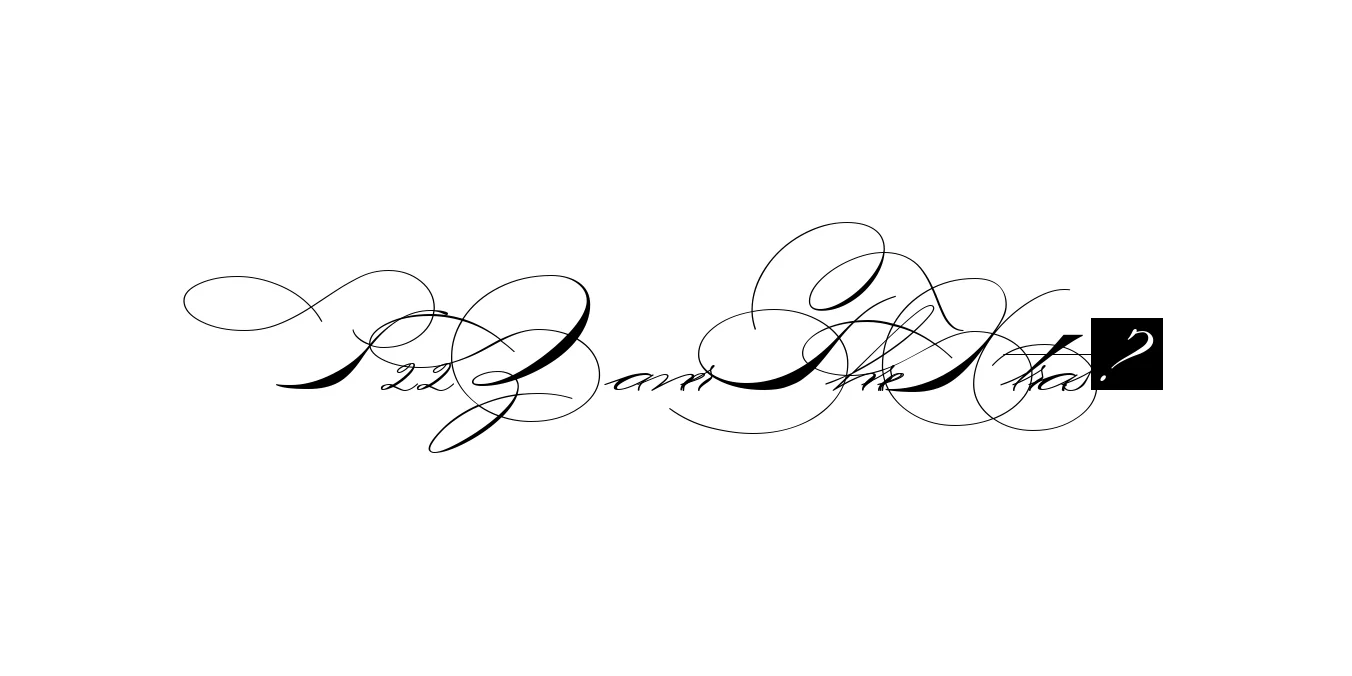
P22ZanerThreeXtras ☞
Designed by Paul Antonio and Richard Kegler
P22 Zaner Three Xtras is an essential component of the P22 Zaner superfamily, a font system meticulously based on the ornamental penmanship of Charles Paxton Zaner. Charles Paxton Zaner was a master of Spencerian and roundhand scripts and founded the Zaner-Bloser Company, which became the standard for American penmanship instruction at the turn of the 20th century. This digital rendition captures the fluid, artistic spirit of hand-penned ink, bringing 19th-century elegance to the digital age.
The Three Xtras font specifically focuses on the ornate flourishes, calligraphic swashes, and decorative borders that characterize high-level penmanship. Designed by Paul Antonio and Richard Kegler, this set provides designers with the tools to create sophisticated, custom-looking compositions. It is widely recognized for its historical accuracy and its ability to add a layer of formal sophistication and artisanal craftsmanship to any typographic layout.
P22ZanerThreeXtras ☞ Best Uses
Perfect for adding intricate flourishes to invitations and formal envelopes.
Excellent for decorative borders and calligraphic accents on diplomas.
Ideal for logos and packaging that require a high-end, historical feel.
Great for drop caps and ornamental page breaks in high-fashion or history magazines.